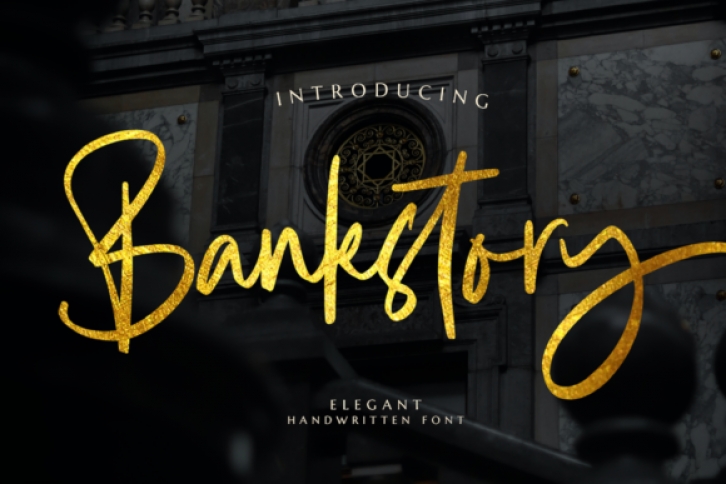
Bankstory is an incredibly distinct, delicate and timeless handwritten font. It looks stunning on wedding invitations, thank you cards, quotes, greeting cards, logos, business cards and every other design which needs a handwritten touch.